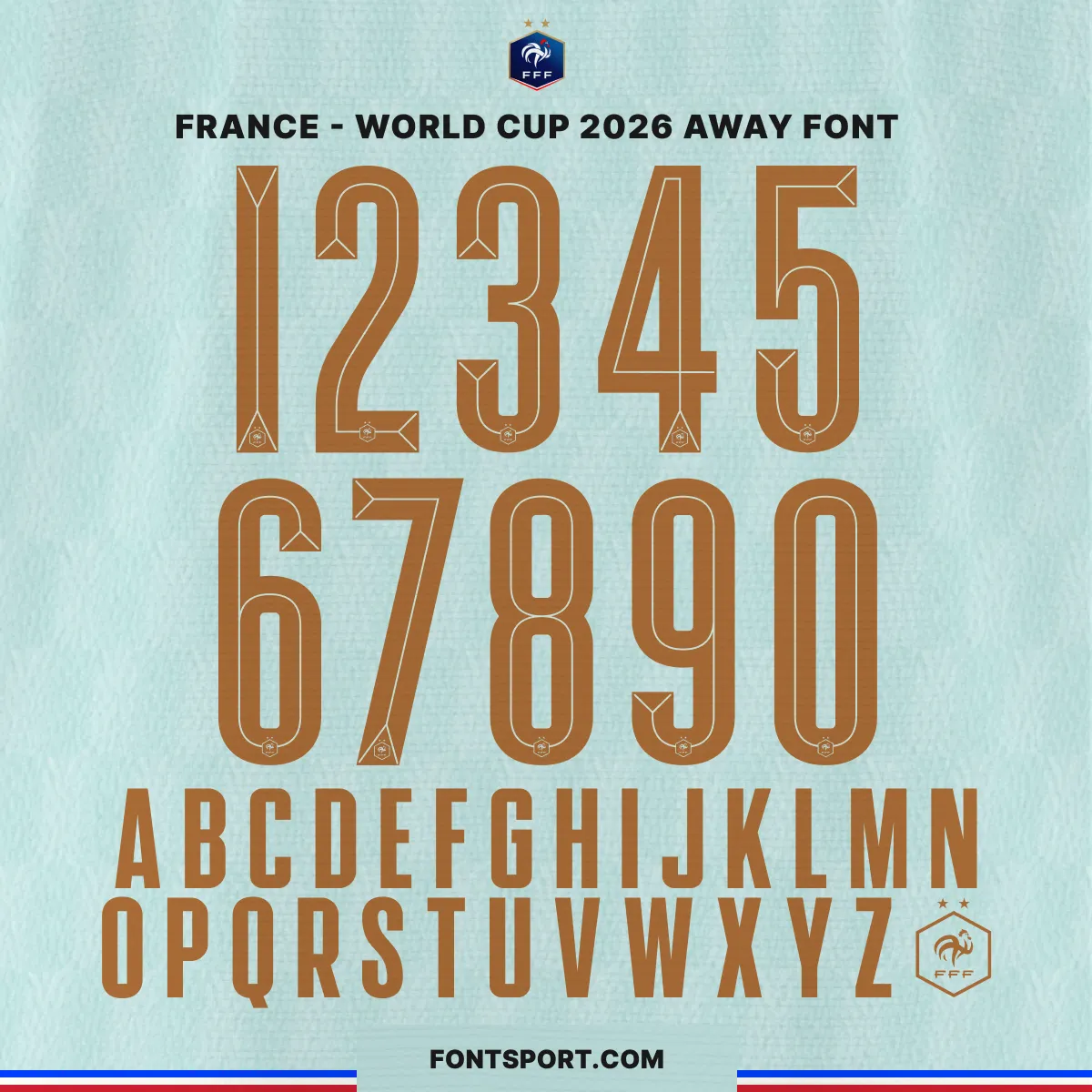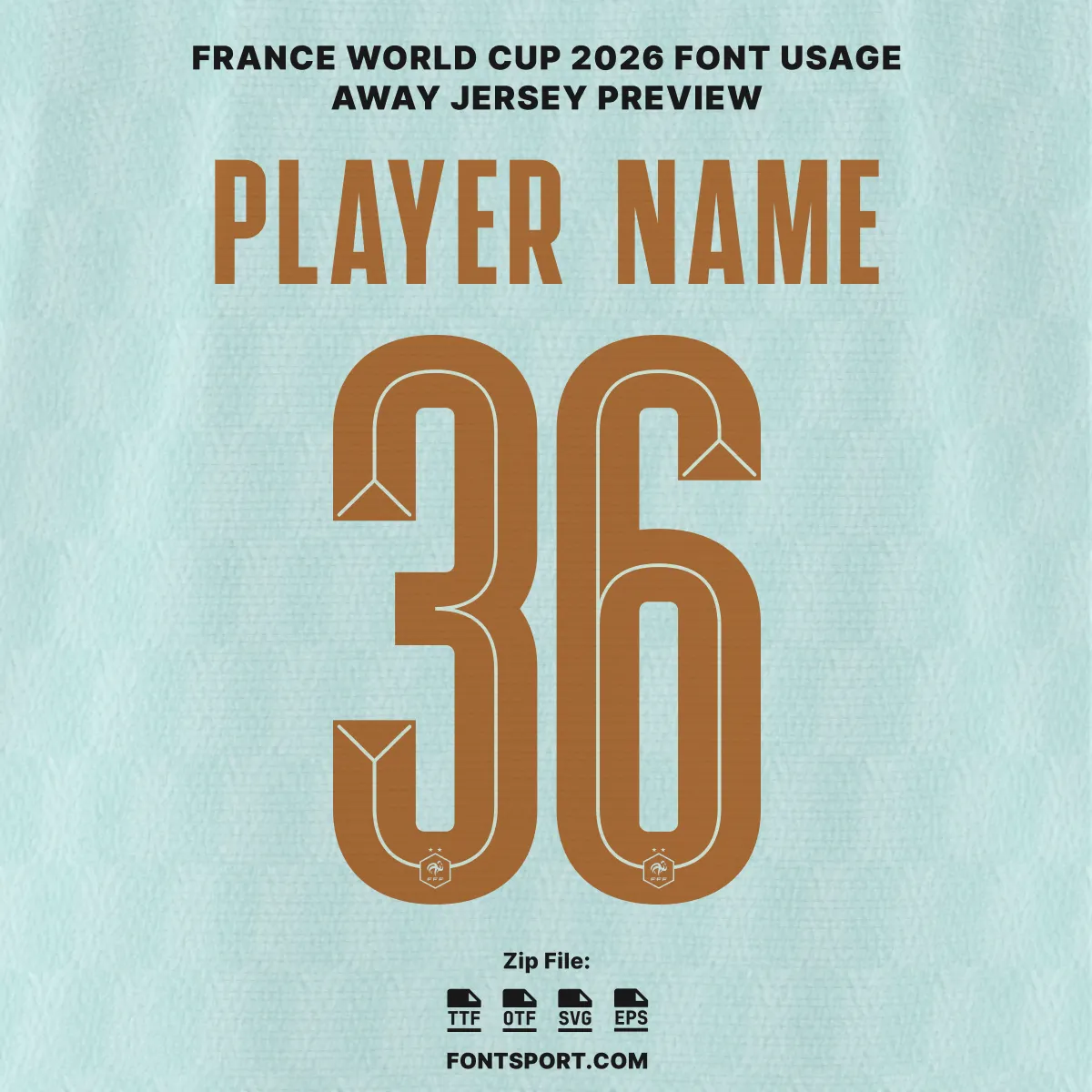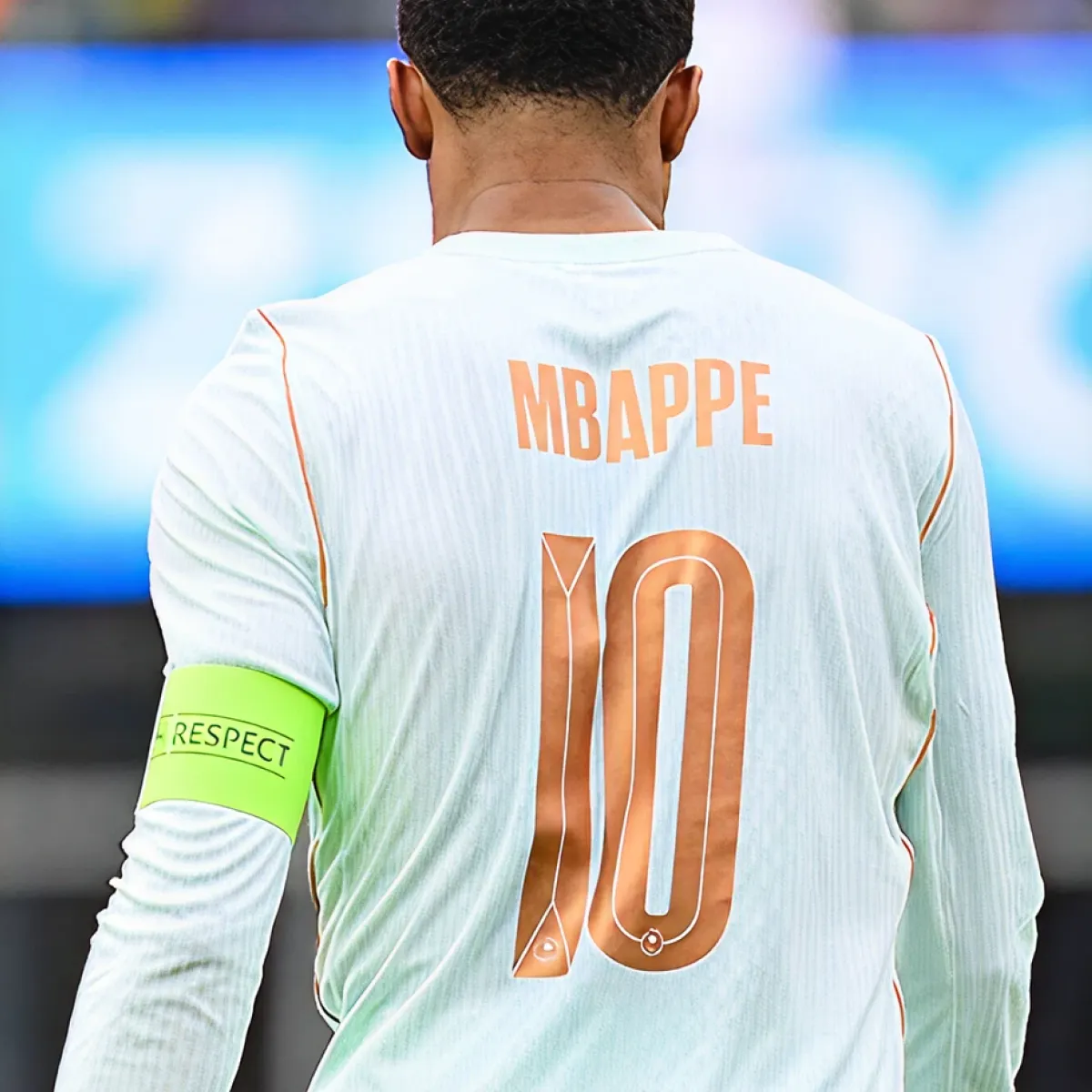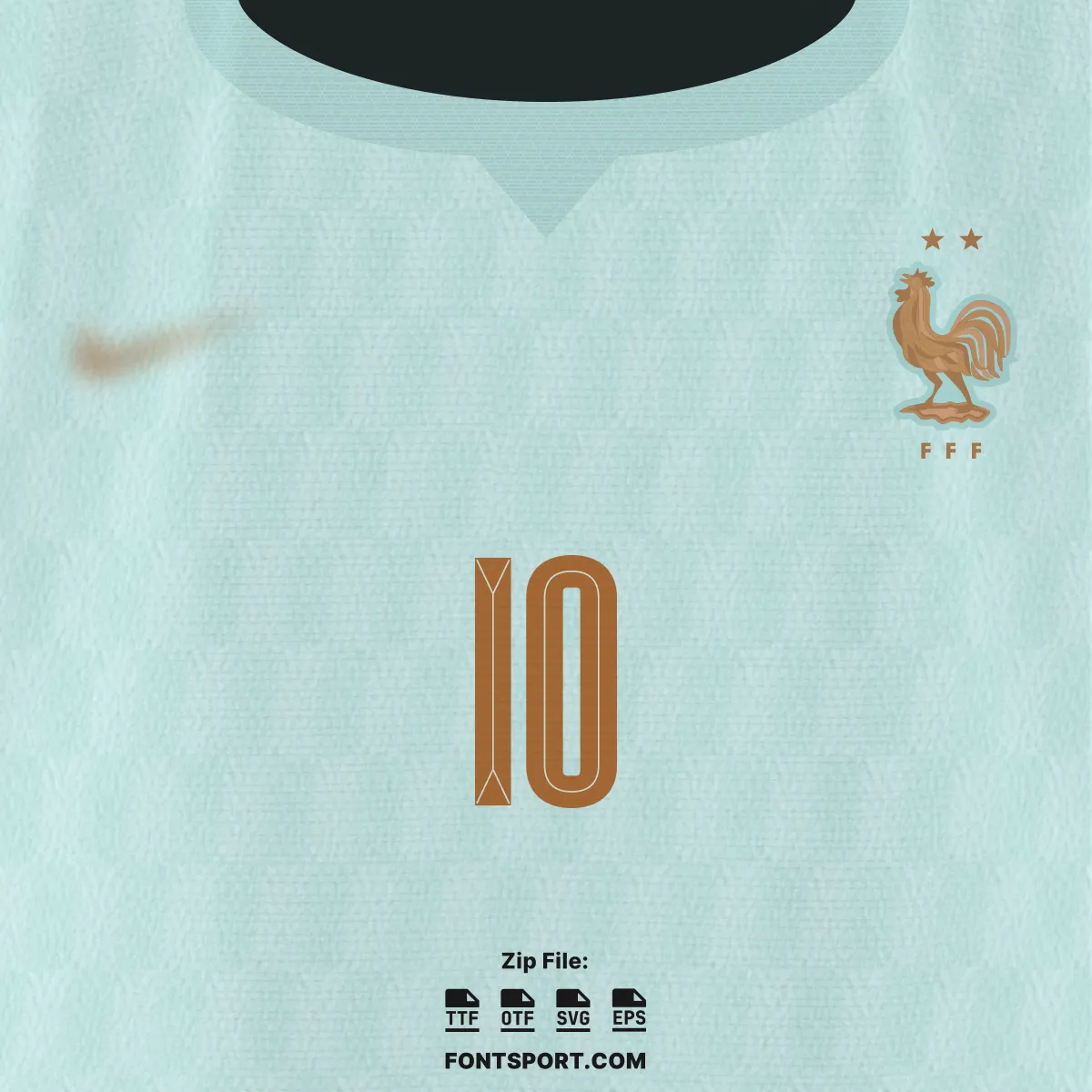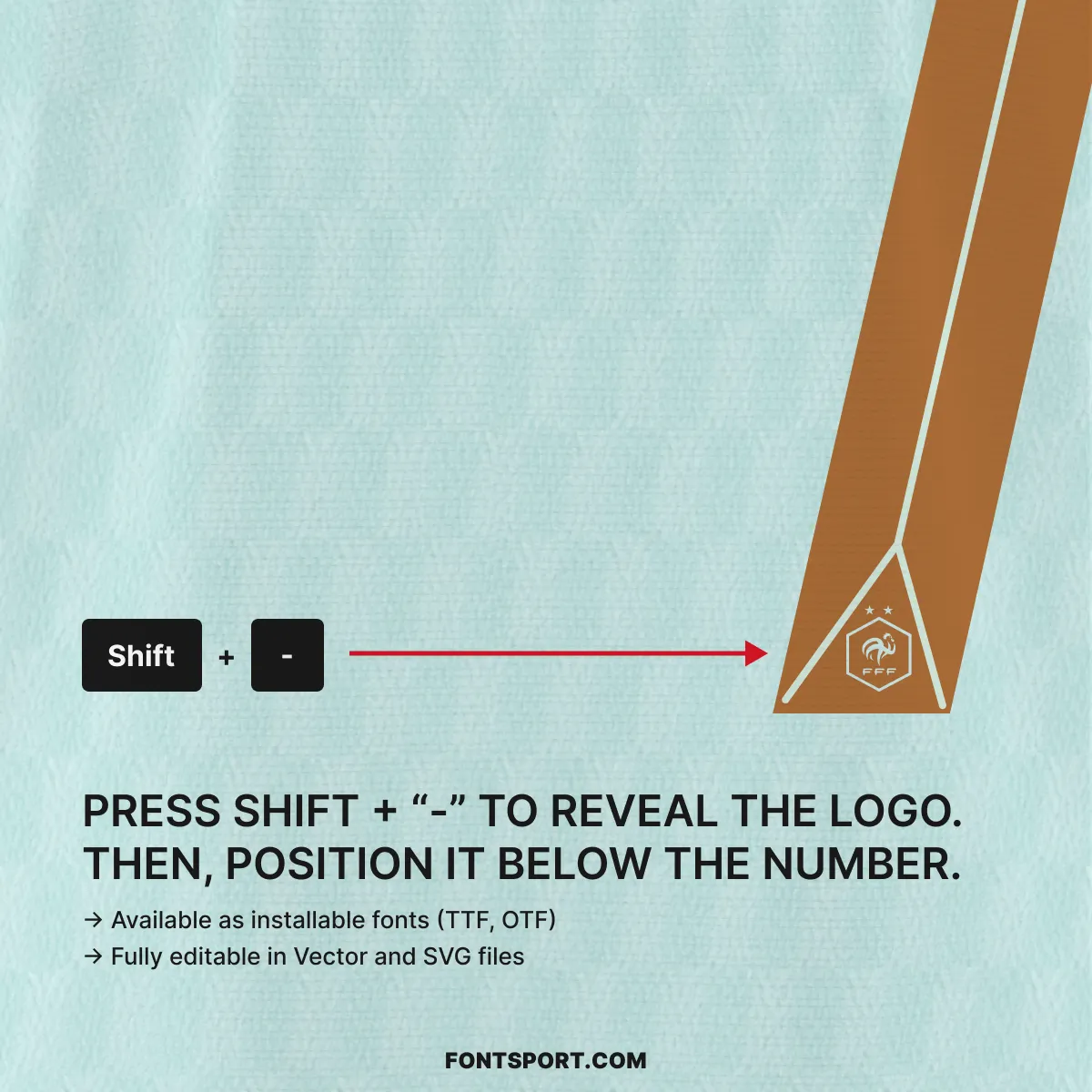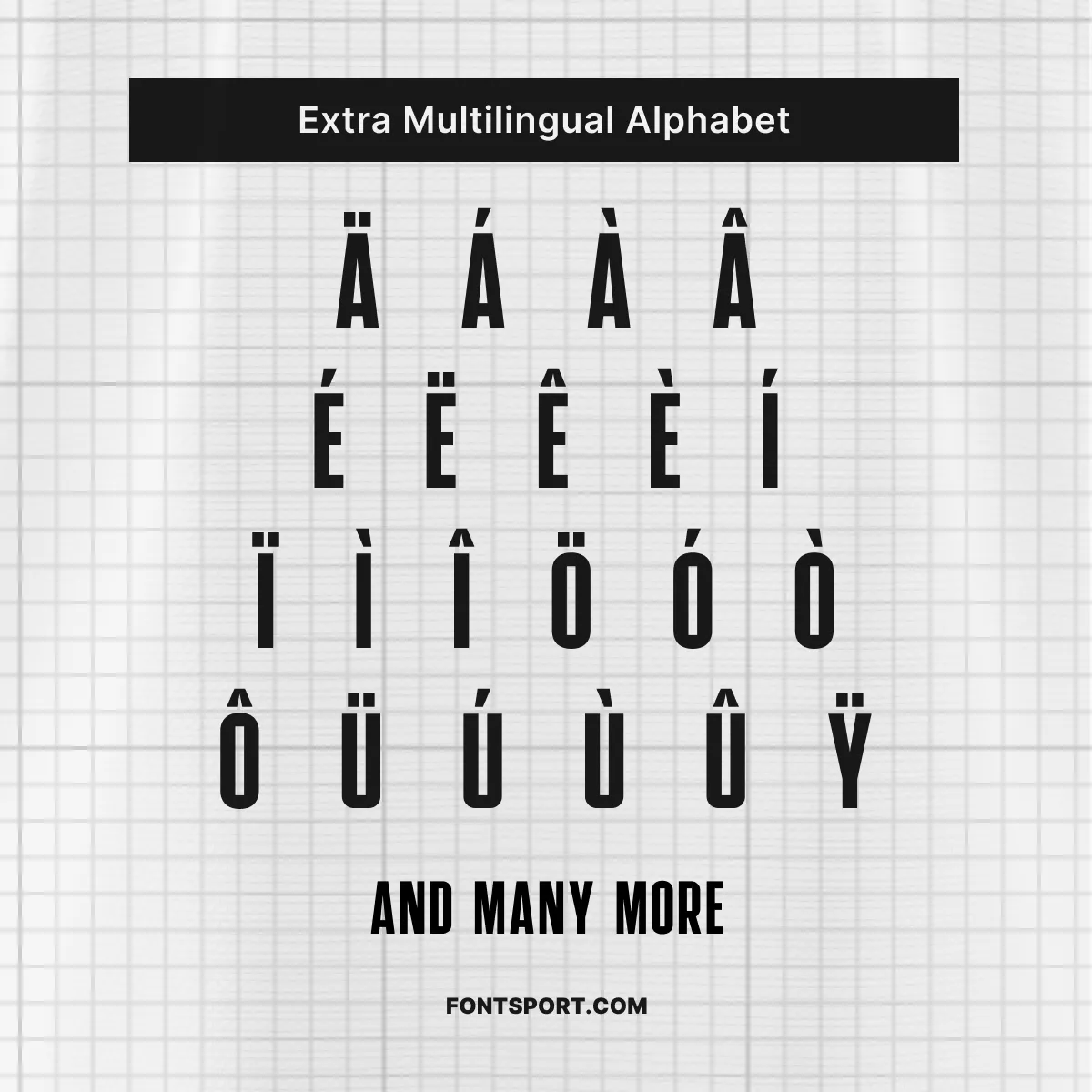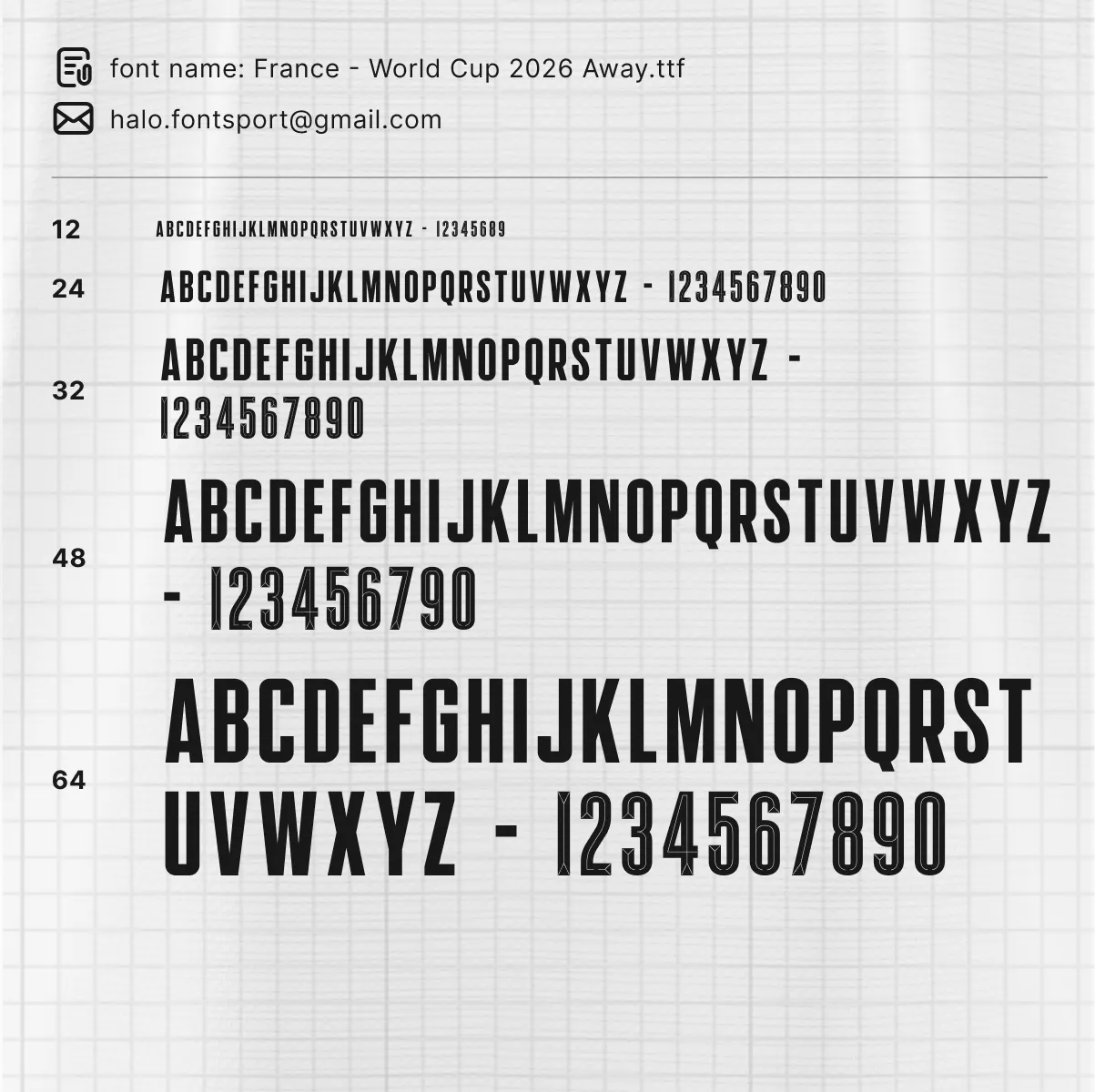
France World Cup 2026 Away Font Kit – Authentic Les Bleus Typeface
Few kits in this World Cup cycle have generated as much conversation as France’s mint green away shirt. The France World Cup 2026 Away Font Kit recreates the copper-toned lettering worn by Kylian Mbappé, Ousmane Dembélé, and Les Bleus across the 2026 tournament — character by character, matched to the proportions and structure seen on the pitch. Furthermore, the design draws directly from Nike’s “Liberté” concept, inspired by the oxidised copper surface of the Statue of Liberty, making this one of the most culturally loaded typefaces in modern international football.
Key Visual Identity of the Font
Typography Style
The lettering is bold, upright, and condensed — built for jersey readability at distance while retaining a premium feel close up. Each character carries a strong vertical axis with clean terminals, reflecting the restrained French elegance embedded in the kit’s overall “Liberté” concept.
Number Design
The numbers are arguably the standout feature of this typeface. Each digit features a distinctive V-notch cutout at the terminals — a subtle but striking design element that echoes the copper rivets and architectural lines of the Statue of Liberty. Notably, the embedded FFF crest glyph (activated via Shift + “-“) sits beneath the numbers on-shirt, completing the authentic jersey recreation.
- ✅ FFF crest logo glyph – activated with Shift + “-” and positioned below the number for a complete shirt-accurate look
- ✅ Multilingual Latin character support including diacritics (Ä, É, Ê, Ö, Ü and many more) – essential for French and European squad names
The France World Cup 2026 Away Font Kit is an independent typeface created by the design team at Fontsport. It is not produced or endorsed by the French Football Federation (FFF), Nike, or FIFA — but every character has been carefully studied and recreated to match the proportions, weight, and structure of the lettering seen on France’s 2026 World Cup away shirt.